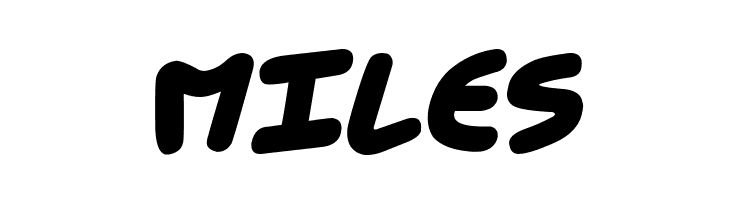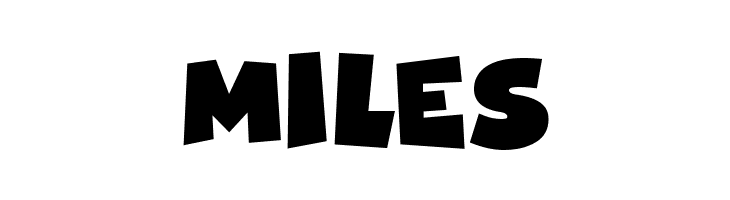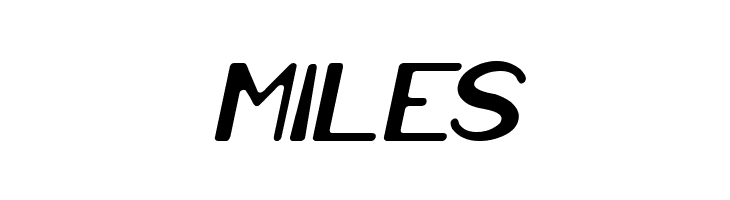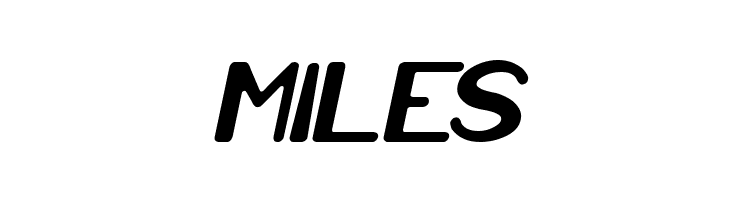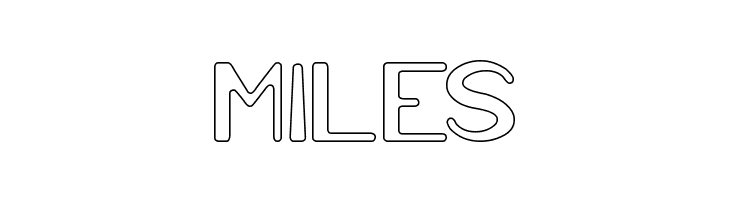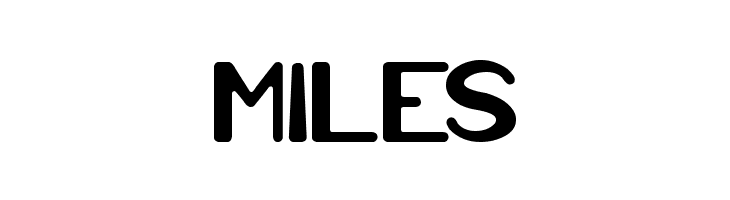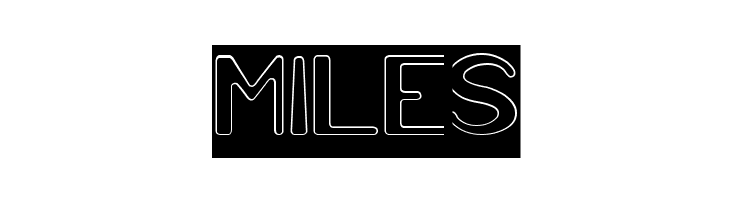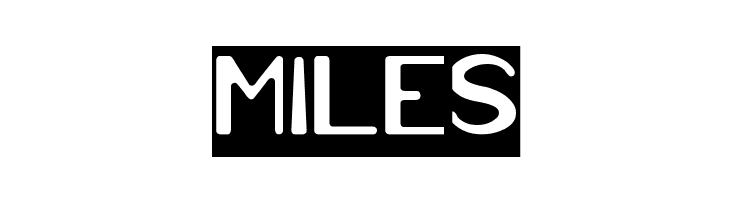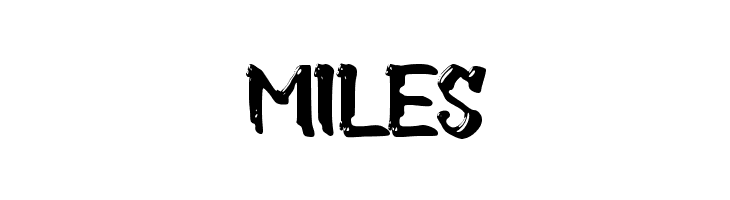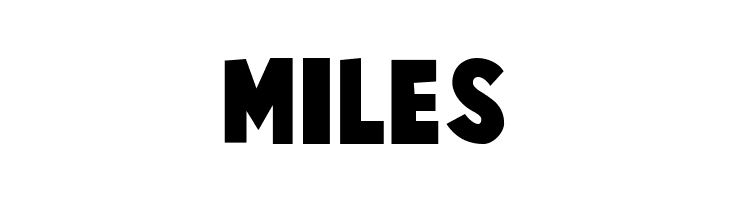
A playful, cartoonish font with bold, rounded outlines and a hand-drawn aesthetic.
A bold, 3D cartoon-style font with thick outlines and playful character design.
A playful, 3D cartoon block font with a Christmas theme and snow-capped letters.
A playful, cartoonish font with snow-capped, blocky letters perfect for festive designs.
A playful, cartoonish block font with festive snow accents.
A bold, playful font with rounded strokes and a cartoonish style.
A playful, rounded font with a cartoon-like style.
A bold, rounded typeface with a playful and friendly style.
A bold, italicized font with smooth, rounded characters and a playful style.
A playful, italicized font with smooth, rounded characters.
A playful, hollow outline font with smooth, rounded edges.
A playful, hollow cartoon-style font with outlined characters.
A playful, rounded font with a bold and friendly appearance.
A playful, bold font with rounded, thick strokes and a cartoonish style.
A bold, playful, and italicized font with a cartoonish style.
A playful, hand-drawn style font with irregular, dynamic characters.
A playful, hand-drawn outline font with a whimsical and cartoonish style.
A bold, playful font with cartoonish, uneven strokes and exaggerated curves.
A playful, hand-drawn font with a cartoonish, whimsical style.
A playful, hand-drawn font with a 3D relief effect, perfect for comic and creative projects.
A playful, sketch-like outline font with a cartoonish flair.
A playful, hand-drawn font with a cartoon-like, italicized style.
A playful, hand-drawn font with a whimsical and informal style.
A playful, hand-drawn font with rounded, whimsical characters.
A decorative cartoon head illustration font with playful, expressive faces.
A bold, cartoonish font with a playful 3D effect and thick outlines.
A bold, playful font with rounded, hand-drawn characters.
A bold, brush-style font with an energetic and artistic appearance.
A bold, 3D carved font with a playful, textured design.
A rugged, hand-carved font with an organic, etched appearance.
A modern, clean font with excellent readability and balanced proportions.
A clean, modern font with balanced proportions and excellent readability.